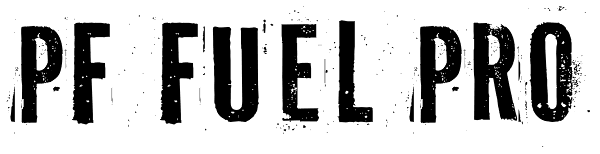
PF Fuel Pro
This typeface was inspired by the rough surroundings of a modern city and reflects the contradicting nature of an emerging global youth culture. Ever since its first release—back in late 1999— it is constantly on our ‘most wanted’ list and has been...